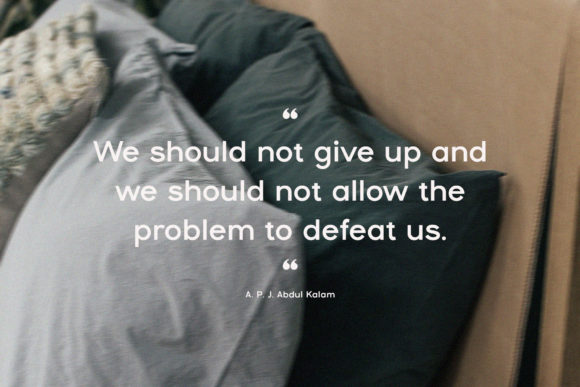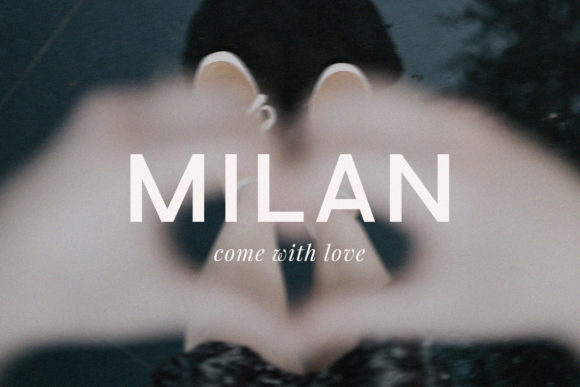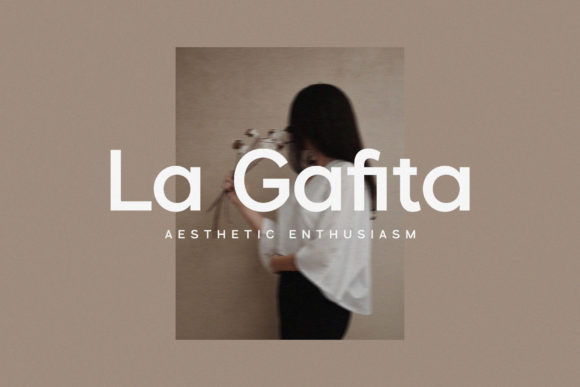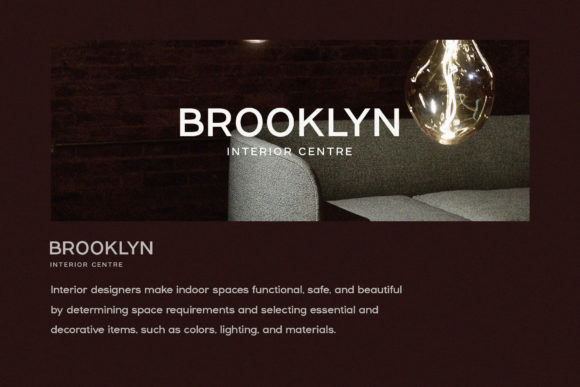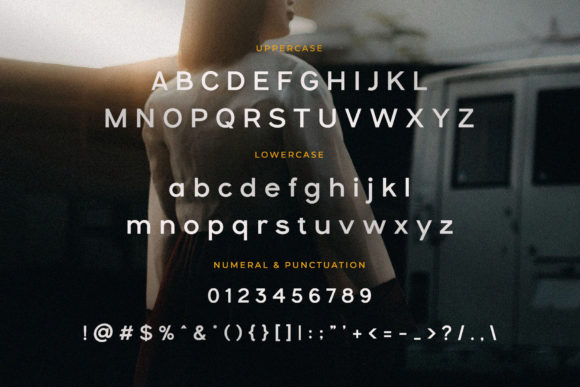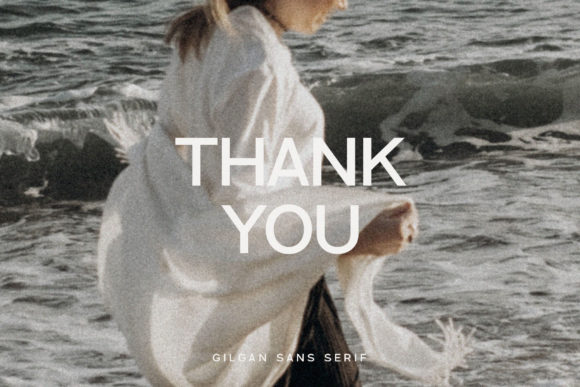
Introduction to Gilgan Font
Gilgan is a clean and neat sans serif font.
Key Features of Gilgan Font
Why Choose Gilgan Font?
Gilgan Font offers exceptional quality and versatility, making it a valuable addition to your design toolkit. Whether you’re creating for personal projects or commercial use, Gilgan Font delivers professional results.